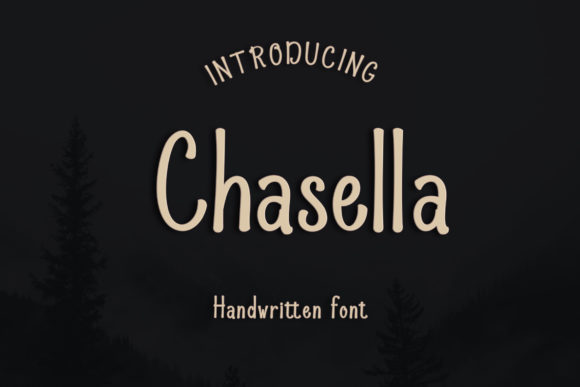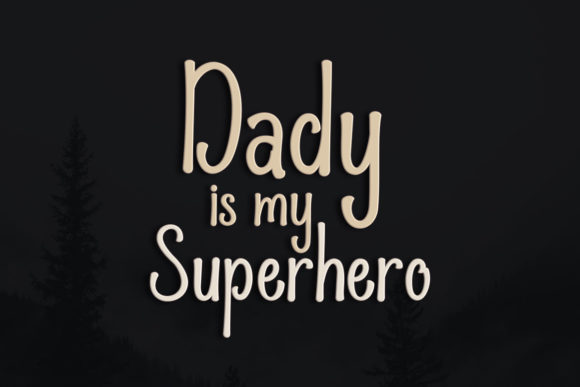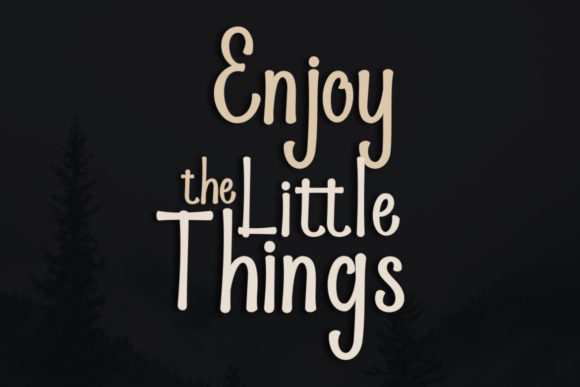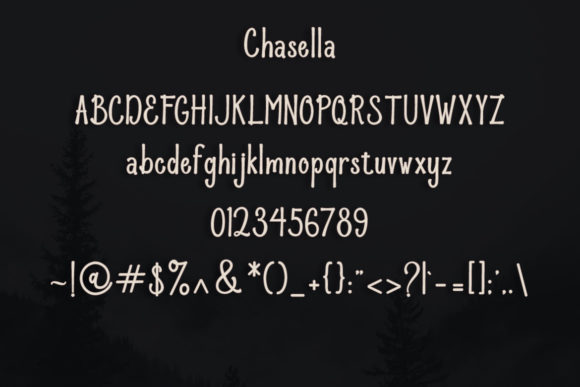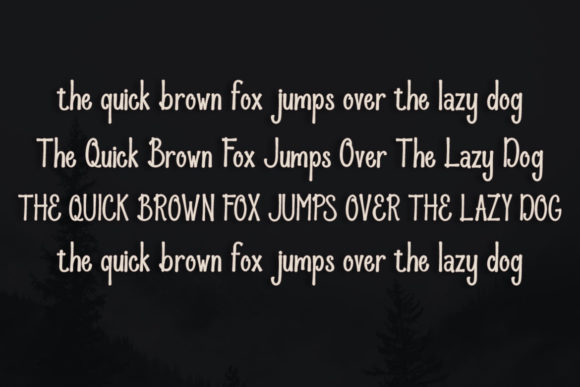
Chasella Font
About Chasella Font
Chasella is a simple and friendly handwritten font. Not too thin and not too thick, balanced and varied, this font was designed to enhance the beauty of your projects.